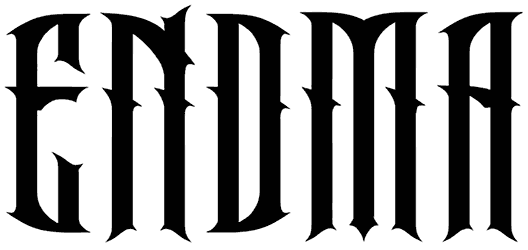
Endma Font
Looking for an executive biker gothic font to make your writing effects stand out? Nice. Endma that reflected in ancient and vintage vibes would help you to draw much attention despite lacking lowercase letters.
Moreover, its tall, jagged letterforms make it ideal to be prominent in designing headers, movie titles, TV shows, and more to create a huge impact. Opt for a couple of other modern gothic fonts from our large inventory to complete your job design.